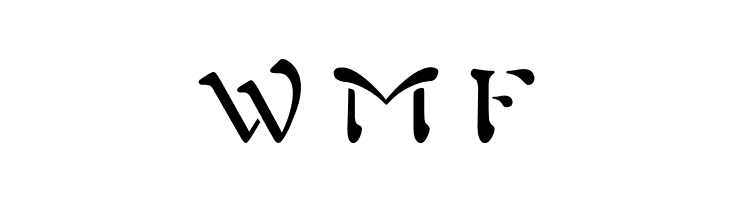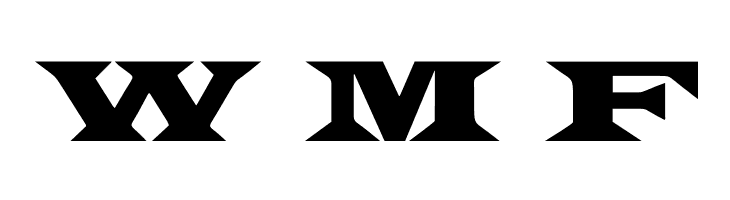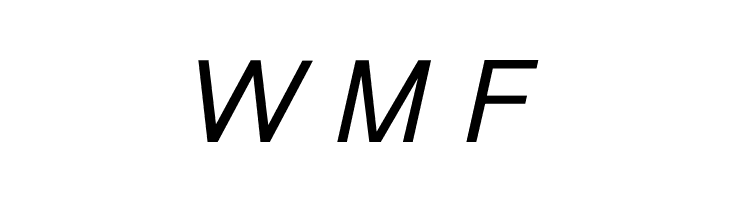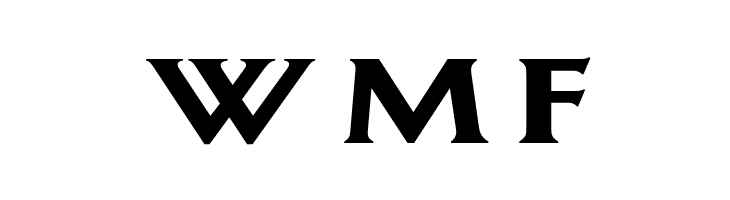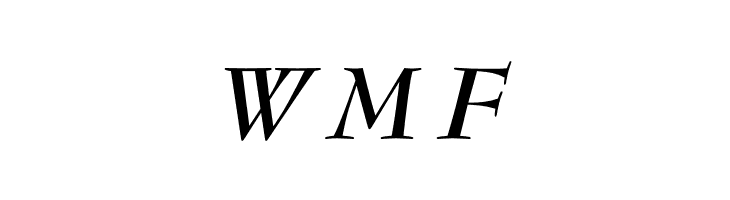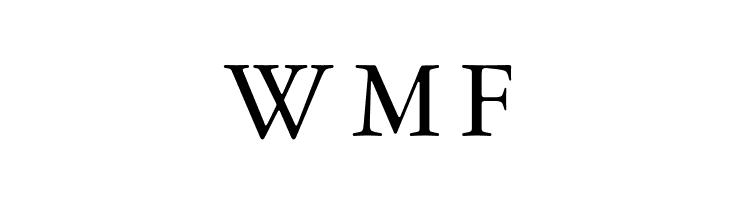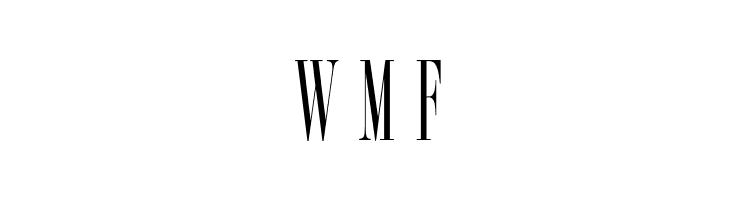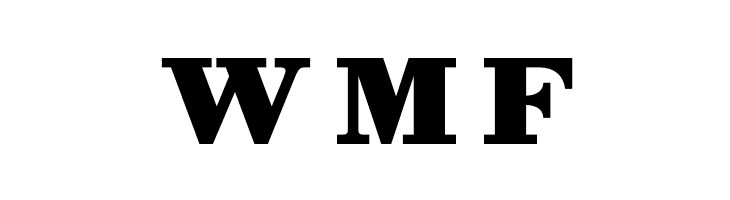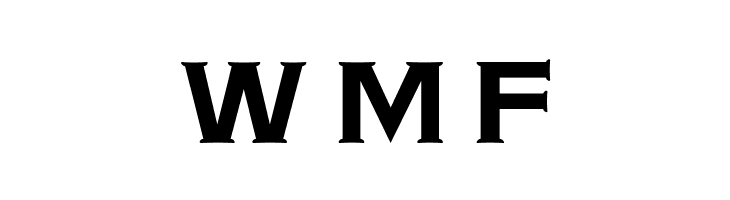
A sophisticated serif font with bold strokes and elegant curves.
A bold, wide serif font with strong, thick strokes and classic elegance.
A modern italic font with clean lines and a sleek, professional appearance.
A bold, serif font with strong strokes and sharp serifs, perfect for impactful designs.
A bold, italic serif font with a modern and elegant style.
A classic serif font with medium contrast and elegant bracketed serifs.
A tall, elegant font with high contrast and elongated uppercase letters.
A bold, classic serif font with strong strokes and a modern touch.
A classic serif font with elegant curves and balanced strokes, ideal for formal use.
A bold, modern font with strong lines and a professional appearance.